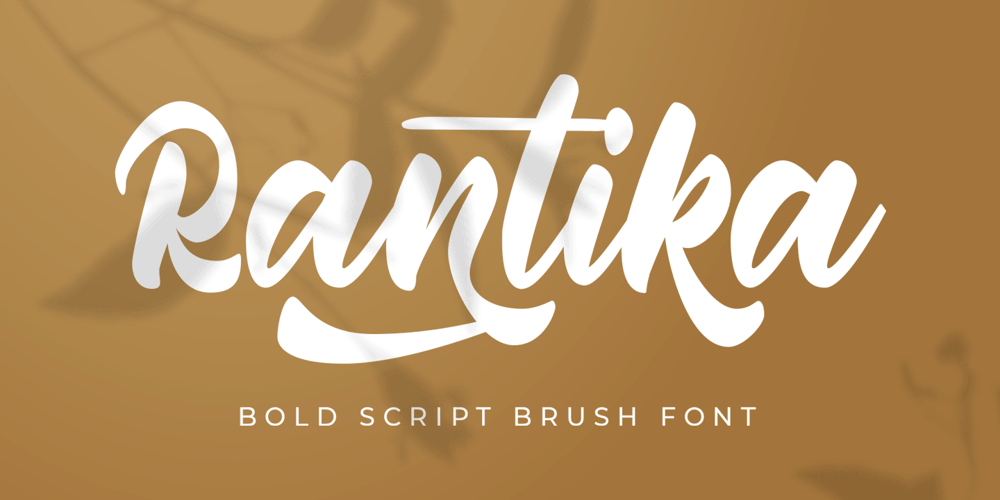
Rantika Font Family was designed by Ahmad Ramzi Fahruddin and published by Arterfak Project. Rantika contains 1 styles and family package options. Rantika is a cute brush font, created with additional bold on the strokes and mostly curved edges of the letterforms. This font comes from the manual brush stroke which has an informal stroke thickness that makes the font looks more natural.Bring the happiness with Rantika, make your design more cheerful because you can use this font for cards, apparel, merchandise, invitation, food or menu design, poster, cute quote, holiday design, and many more!Fonts featured : Uppercase Lowercase Numbers Punctuation Accented characters Stylistic set Ligatures Thank you for watching